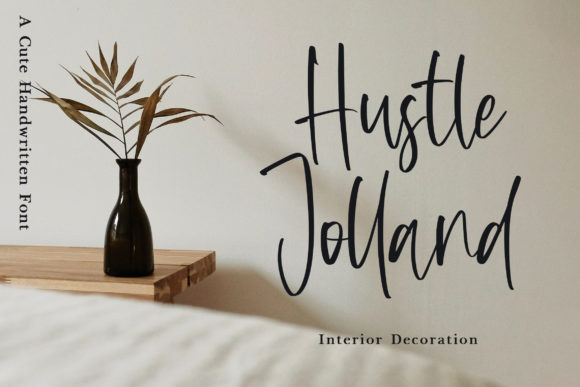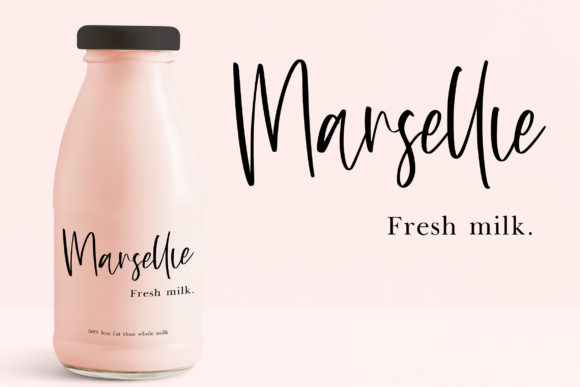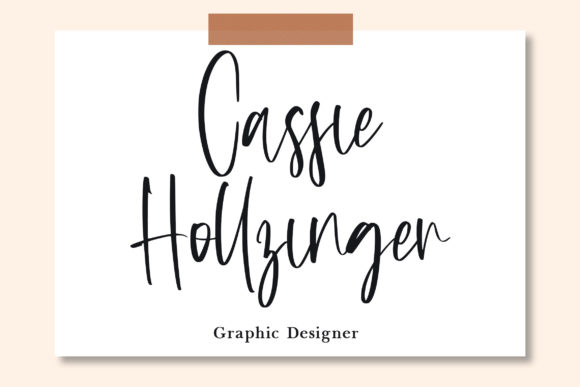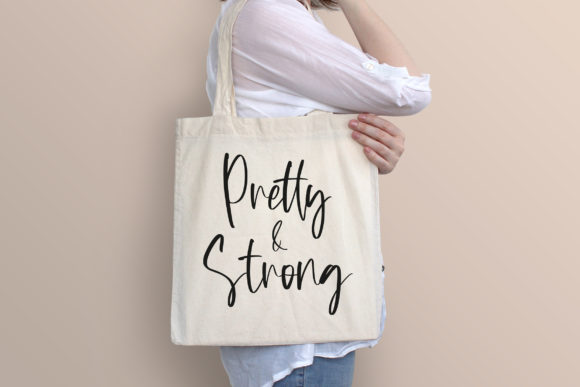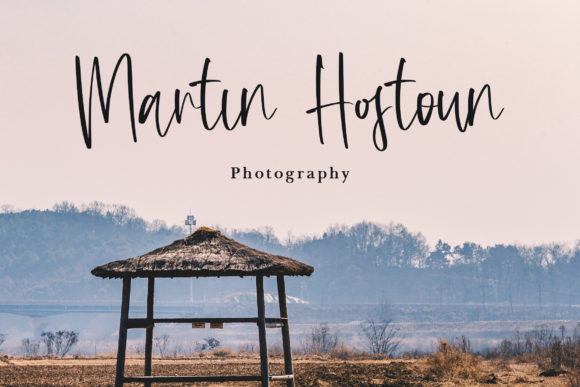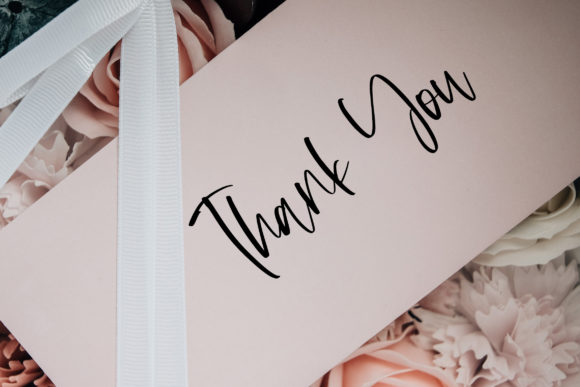
Coffeepots Font: The Perfect Addition to Your Design Arsenal
Are you a designer or crafter looking for a unique and elegant font to elevate your creative projects? Look no further than Coffeepots Font, a beautiful handwritten font that features sweet and delicate swashes. With its original look and versatility, Coffeepots is the perfect addition to your design arsenal.
What is Coffeepots Font?
Coffeepots Font is a carefully crafted handwritten font that exudes elegance and sophistication. Its delicate swashes and sweet curves make it perfect for a wide range of crafty ideas, from letterheads and titles to stationery and more. Whether you’re designing for a client or working on a personal project, Coffeepots Font is sure to impress.
Key Features of Coffeepots Font
- Elegant and Dainty: Coffeepots Font features a delicate and refined design that adds a touch of sophistication to any project.
- Sweet and Delicate Swashes: The font’s swashes are carefully crafted to add a touch of whimsy and elegance to your designs.
- Handwritten: Coffeepots Font has a warm and personal feel, making it perfect for designs that require a human touch.
- Versatile: The font is suitable for a wide range of design projects, from letterheads and titles to stationery and more.
Uses for Coffeepots Font
Coffeepots Font is a versatile font that can be used in a variety of design projects, including:
- Letterheads: Add a touch of elegance to your letterheads with Coffeepots Font.
- Titles: Use Coffeepots Font to create beautiful and eye-catching titles for your designs.
- Stationery: Elevate your stationery designs with the sweet and delicate swashes of Coffeepots Font.
- Branding: Use Coffeepots Font to create a unique and memorable brand identity.
- Packaging: Add a touch of elegance to your packaging designs with Coffeepots Font.
Tips for Using Coffeepots Font
Here are a few tips for getting the most out of Coffeepots Font:
- Use it sparingly: Coffeepots Font is a elegant and refined font, so use it sparingly to add a touch of sophistication to your designs.
- Experiment with swashes: The swashes in Coffeepots Font are one of its most distinctive features, so experiment with different swash combinations to find the one that works best for your design.
- Pair it with other fonts: Coffeepots Font pairs well with a variety of other fonts, so experiment with different pairings to find the one that works best for your design.
Coffeepots Font is a beautiful and elegant handwritten font that features sweet and delicate swashes. With its original look and versatility, it’s the perfect addition to your design arsenal. Whether you’re a designer or crafter, Coffeepots Font is sure to elevate your creative projects and add a touch of sophistication to your designs.
- What type of font is Coffeepots Font? Coffeepots Font is a handwritten font.